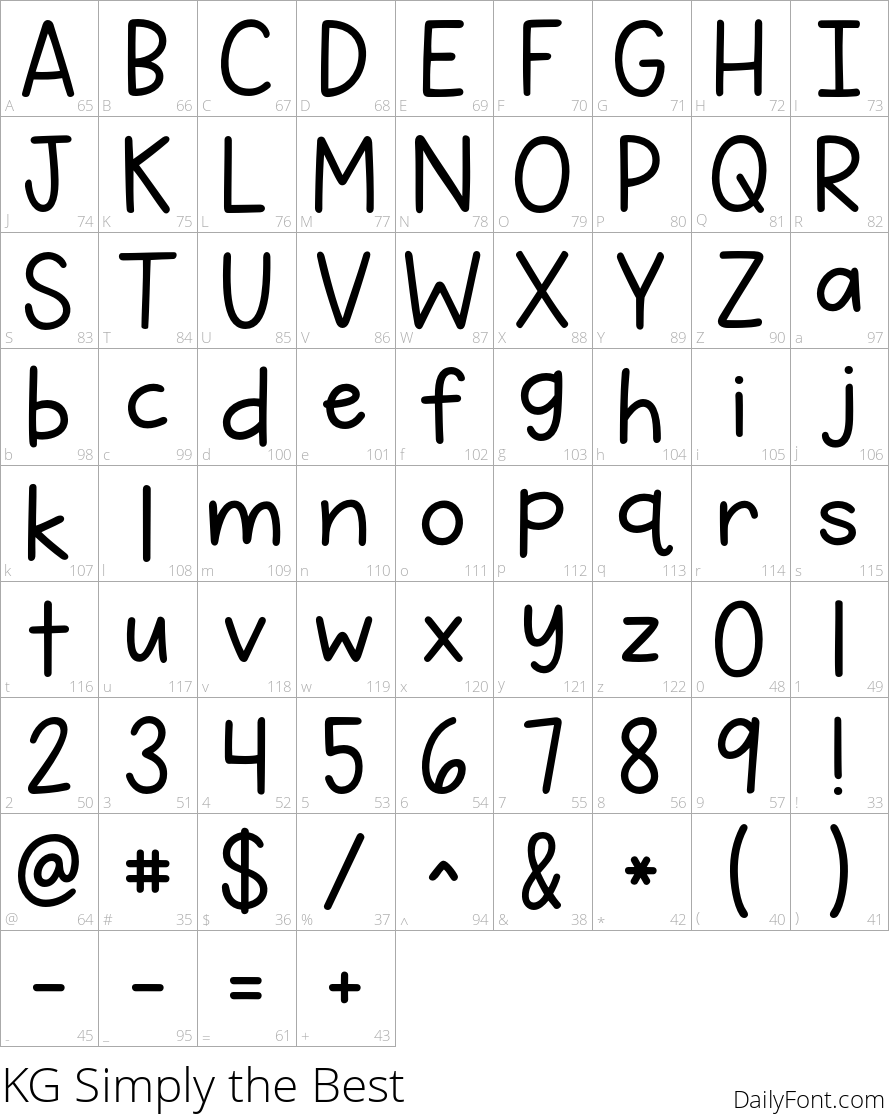
KG Simply the Best
KG Simply the Best is a fun and relaxed handwritten marker font perfect for adding a personal touch to your projects. Ideal for invitations, posters, and any creative endeavor requiring character and charm.